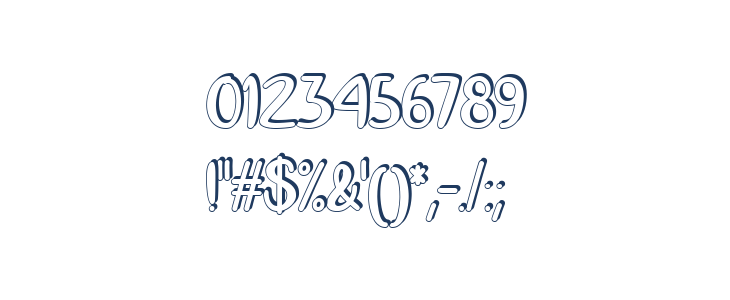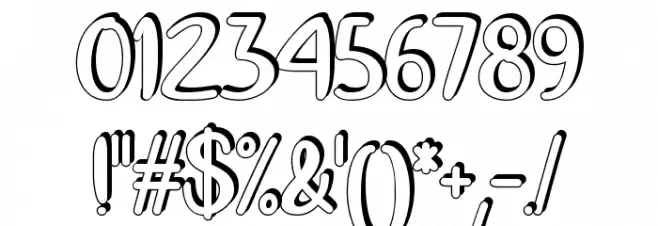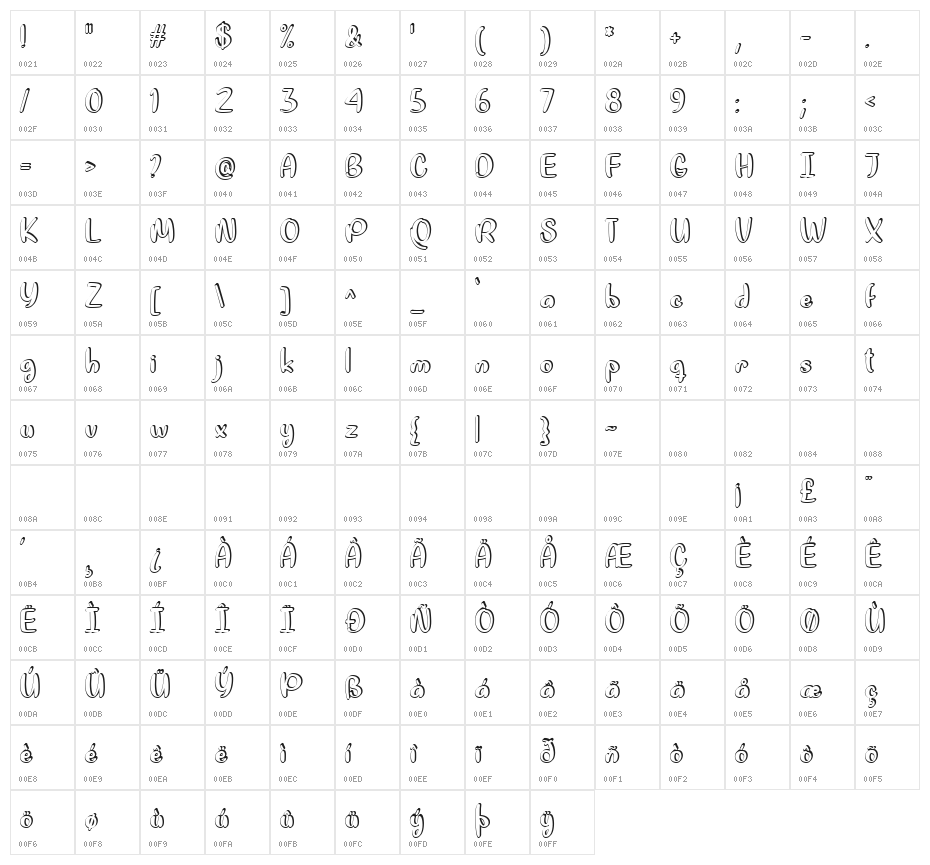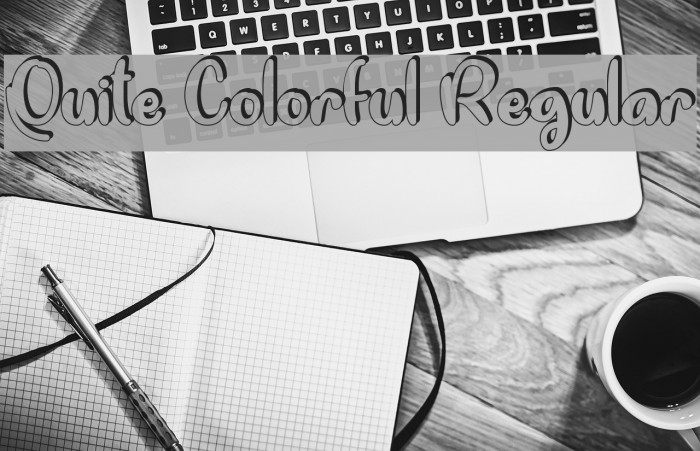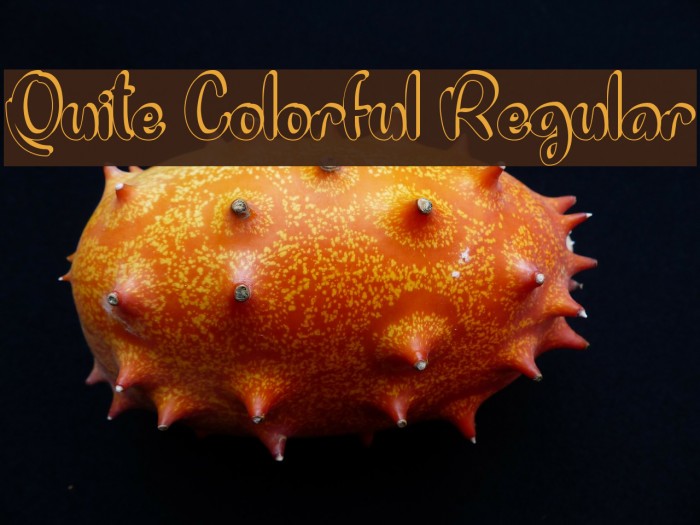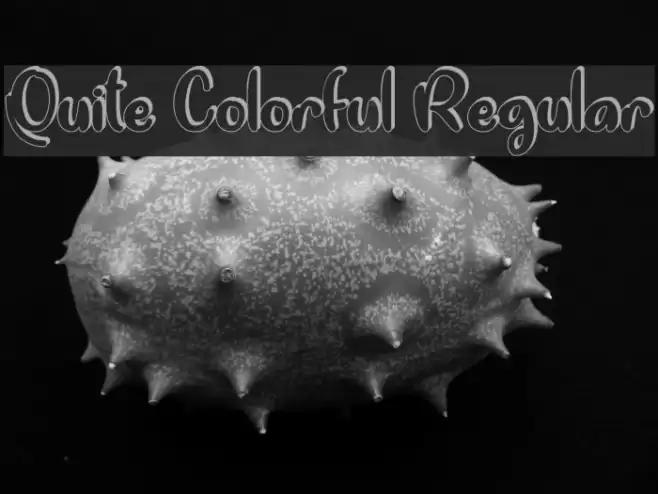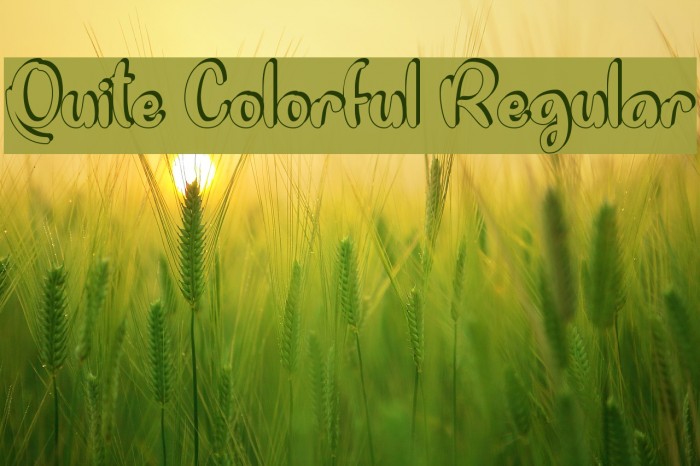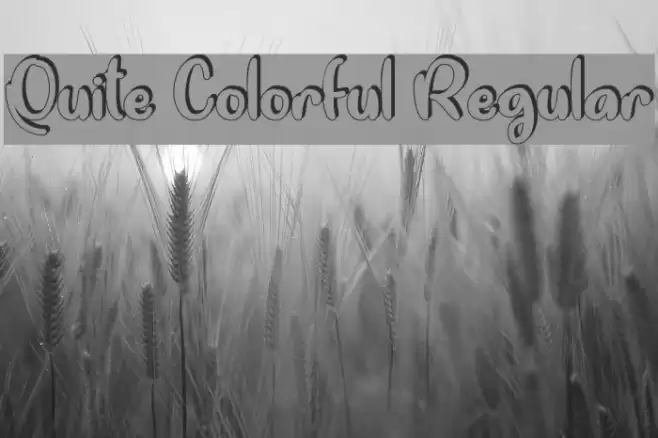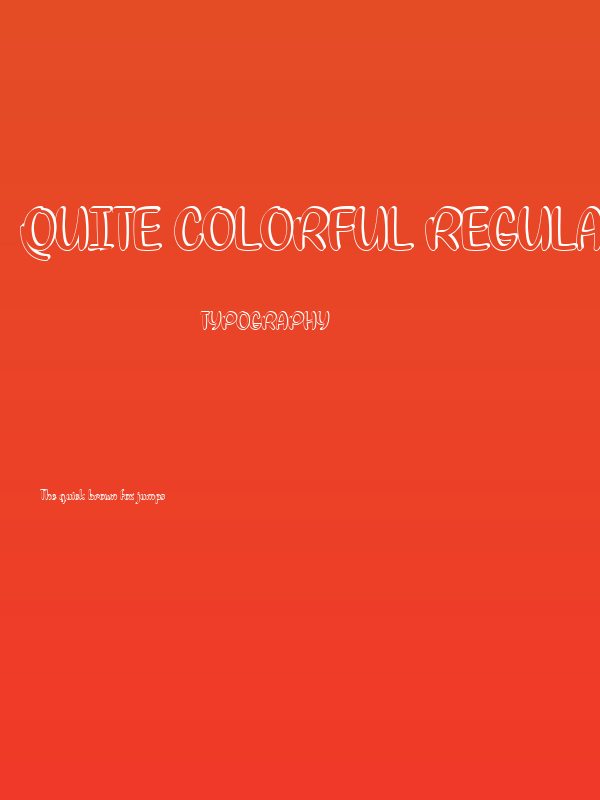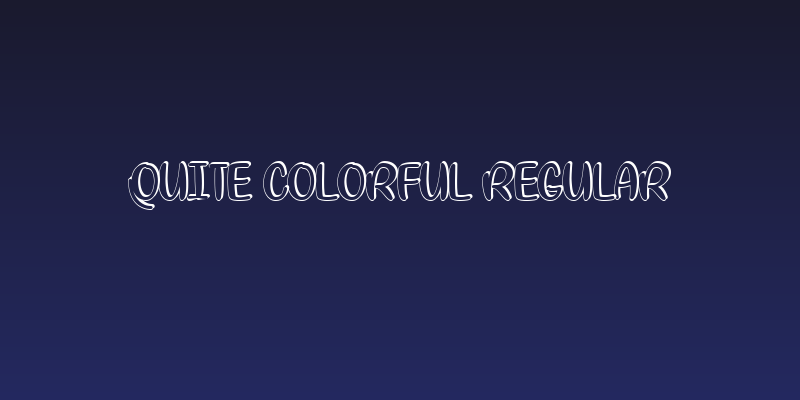
Quite Colorful Regular Font
Quite Colorful Regular Description
This font features a playful and vibrant style with bold outlines and a hollow interior, giving it a unique, eye-catching appearance. The uppercase and lowercase letters maintain a consistent, rounded shape, adding to the font's approachable and friendly vibe. The numerals and special characters are designed to match the overall aesthetic, ensuring a cohesive look across all text. The font's whimsical nature makes it ideal for projects that require a touch of fun and creativity. Its distinct outline style allows for easy customization, such as adding colors or patterns within the letters, enhancing its versatility for various design needs.
| Overall Style | Playful, Creative |
| Use Case | Headlines, Logos, Creative Projects |